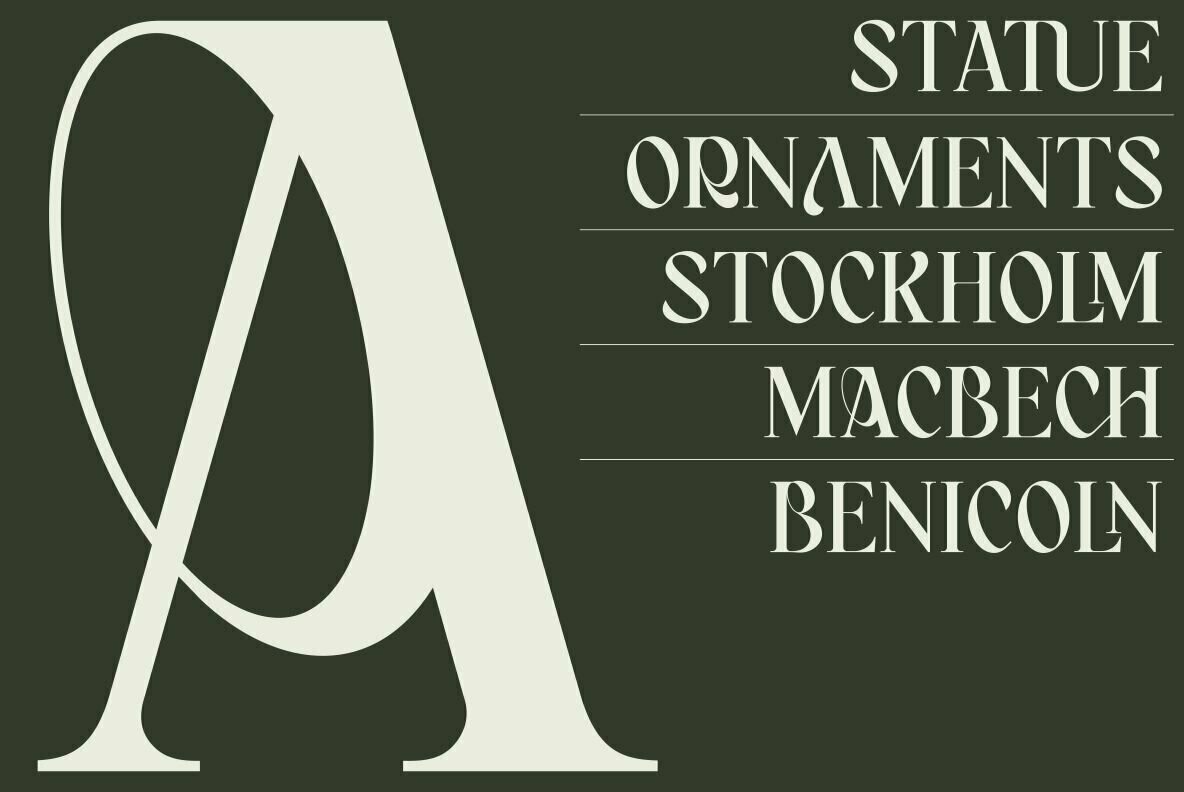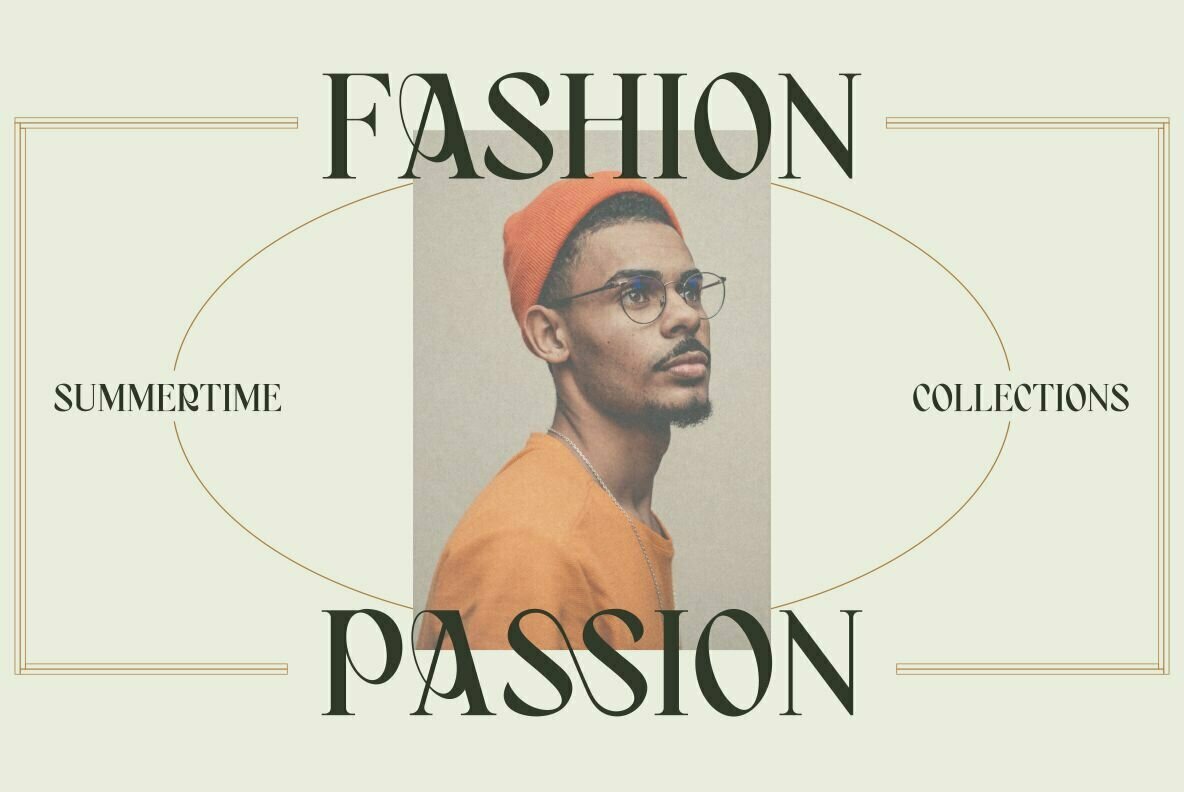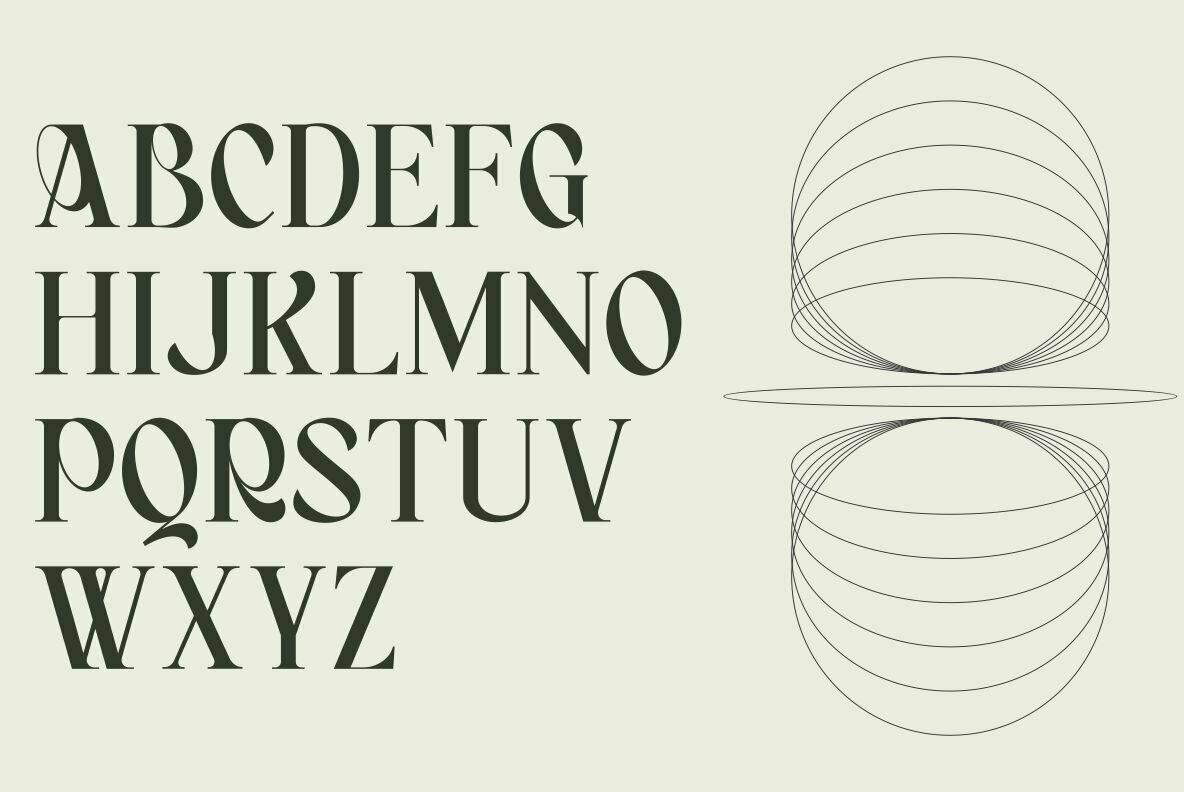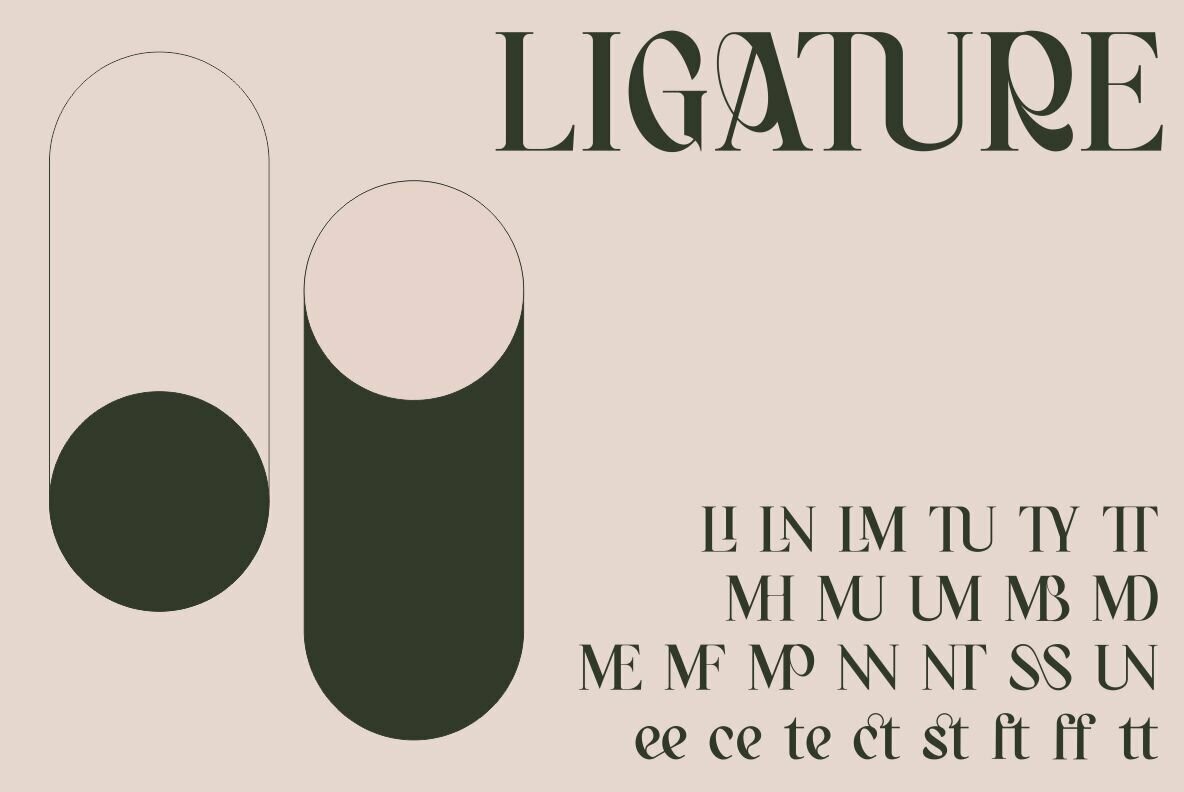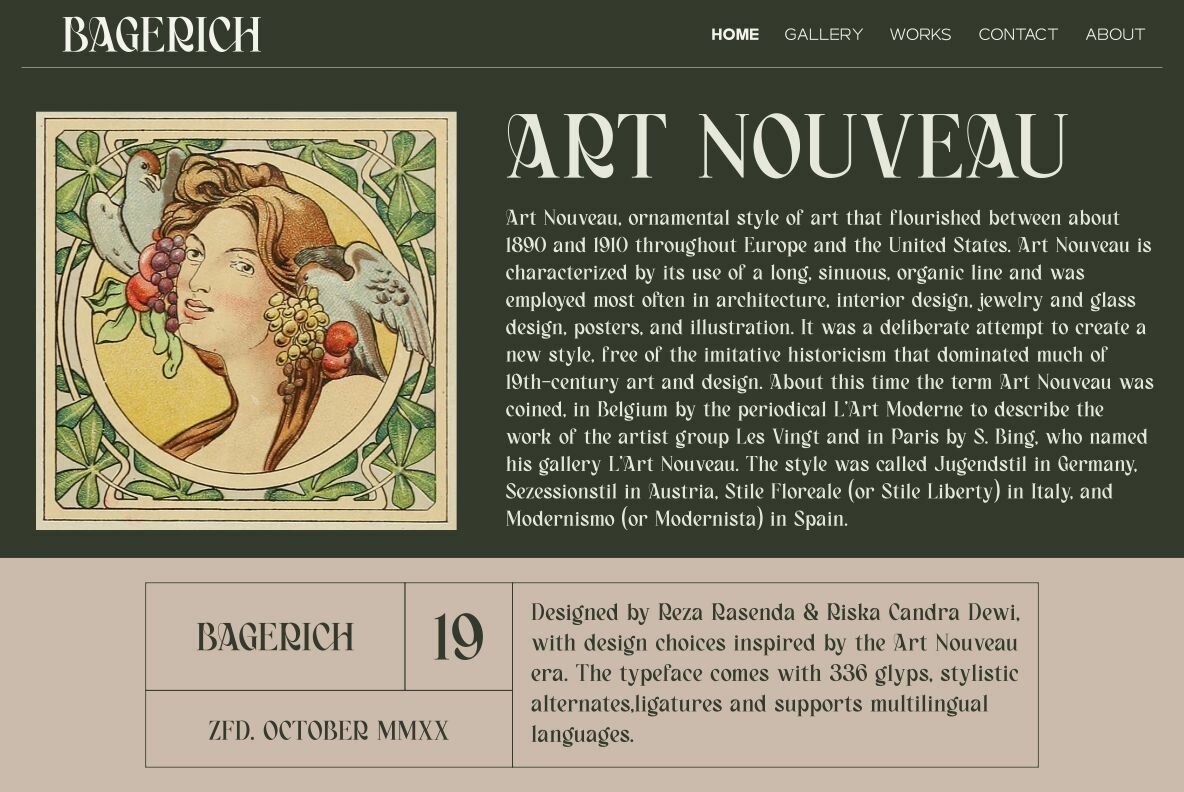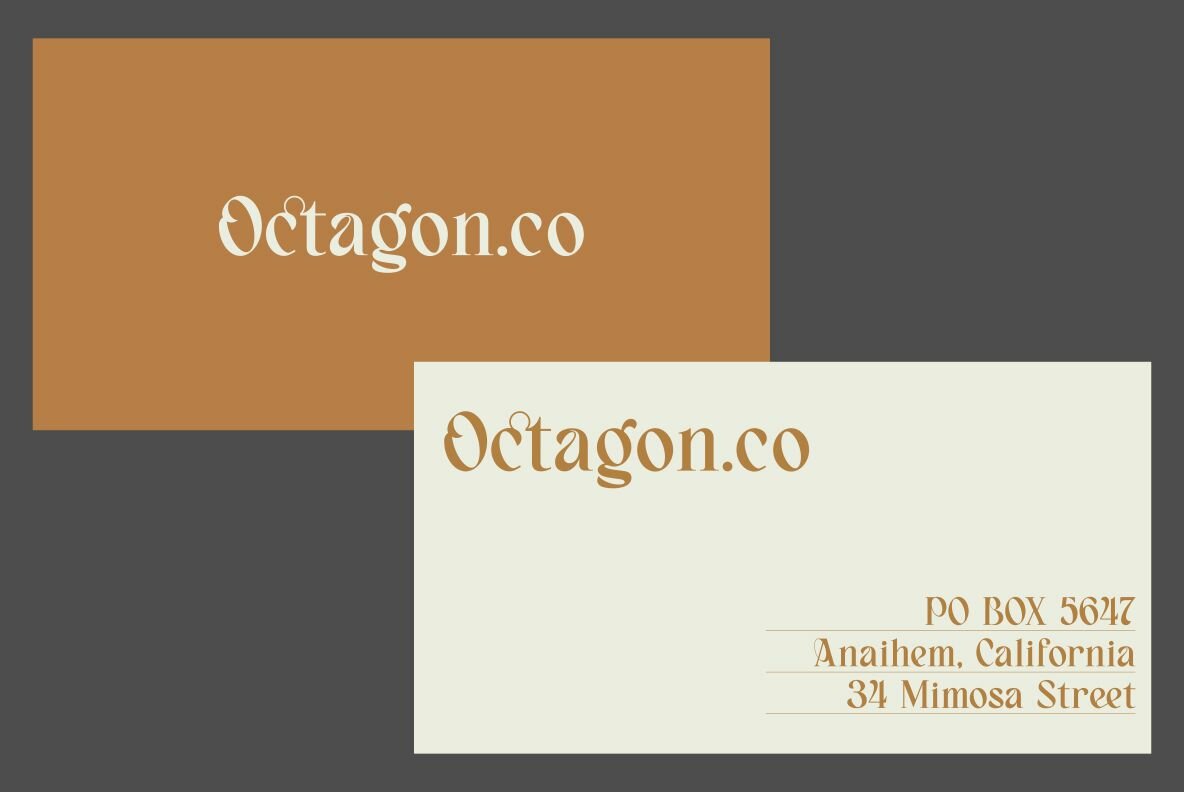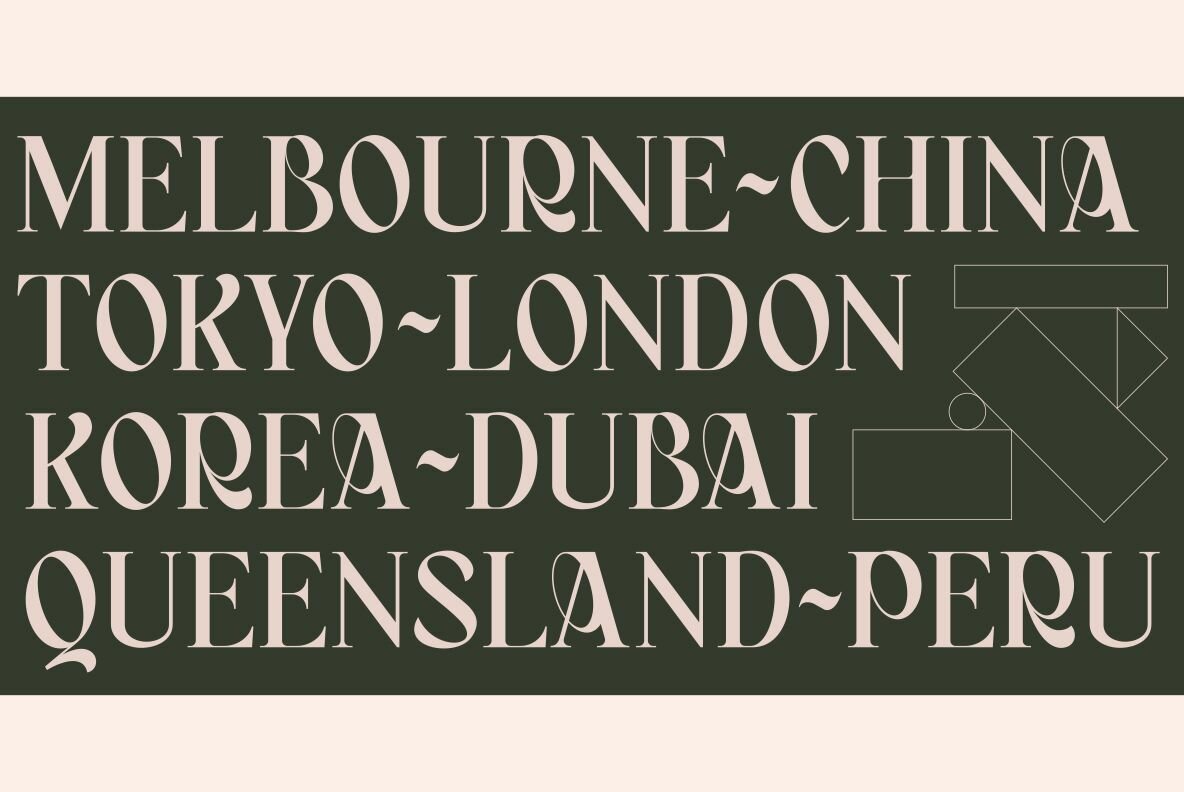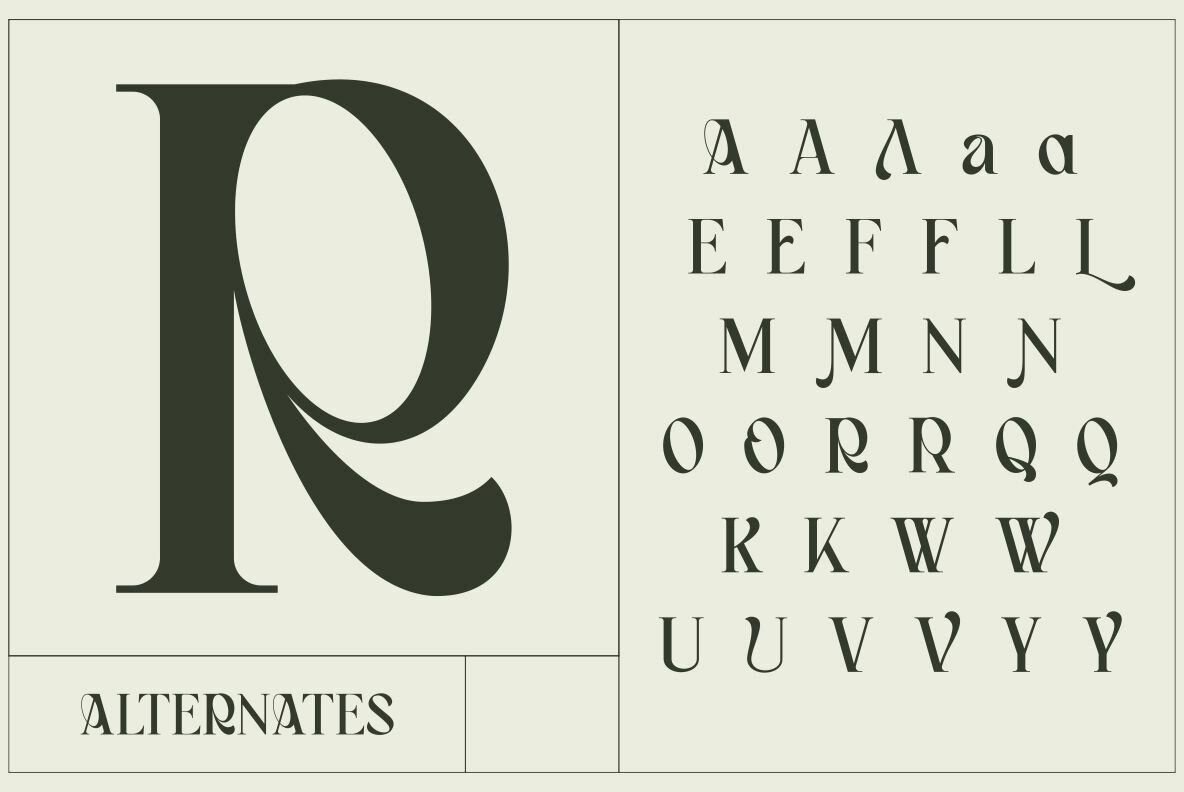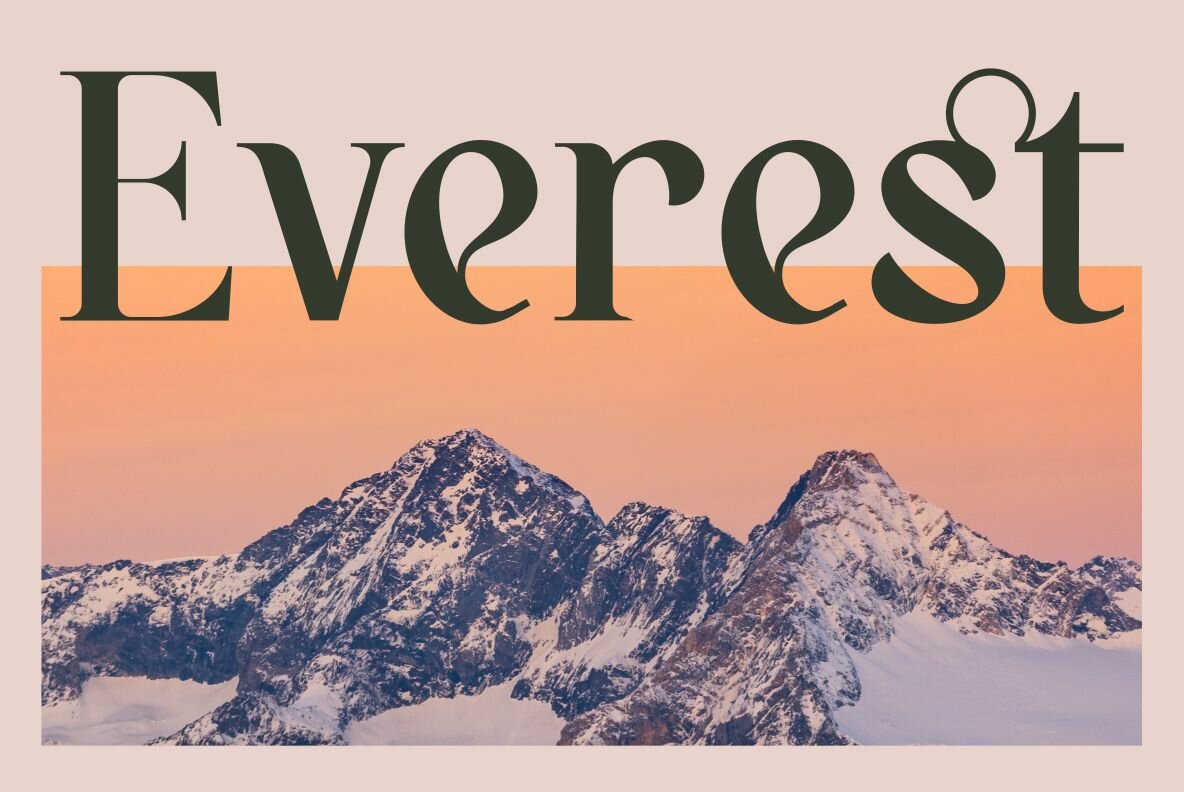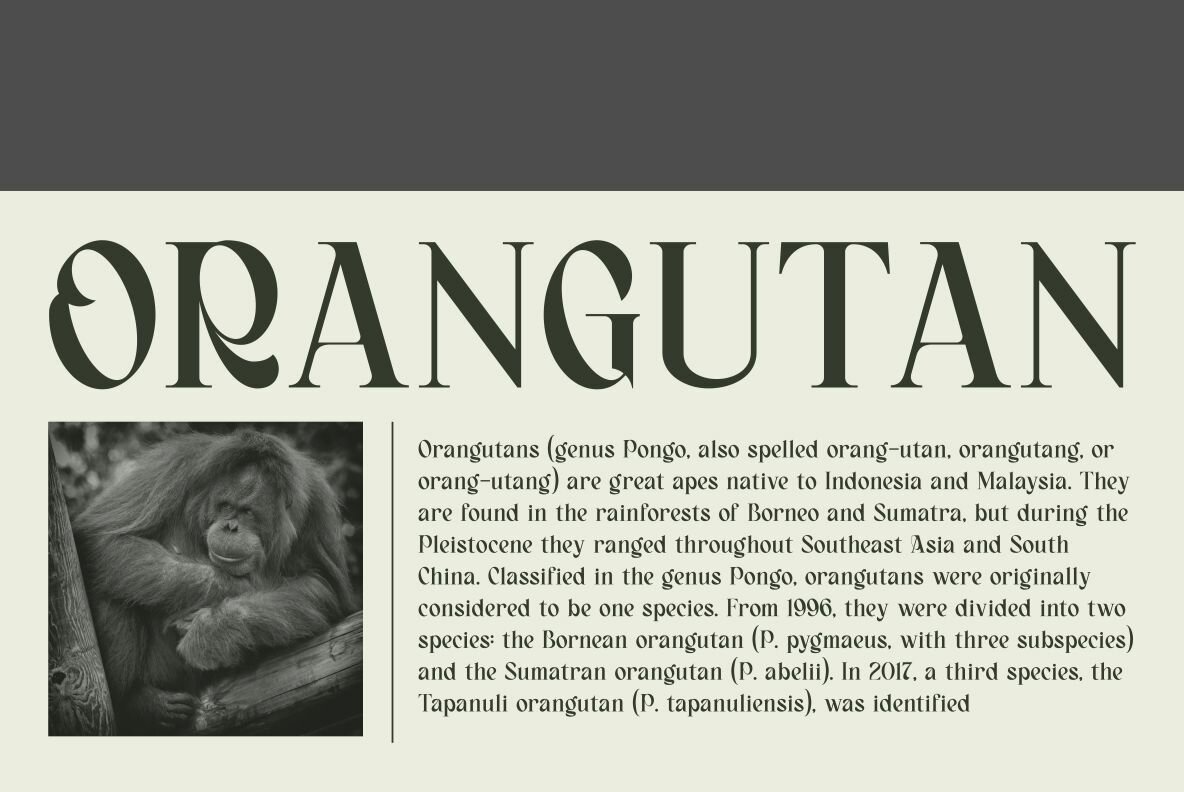
Bagerich
Embrace the elegance and sophistication of the Art Nouveau era with Bagerich, a typeface meticulously crafted to infuse your designs with timeless style. Designed by Reza Rasenda and Riska Candra Dewi, Bagerich stands out with its nuanced attention to detail and artistic flourishes, making it ideal for projects that demand a touch of class and creativity. This typeface is perfect for creating unique logotypes, lending an elegant finish to magazine layouts, or adding a sleek sophistication to graphic works. Bagerich offers a refined aesthetic suited for those aiming to elevate their design projects with a touch of historical charm.Bagerich: Art Nouveau-Inspired Typeface